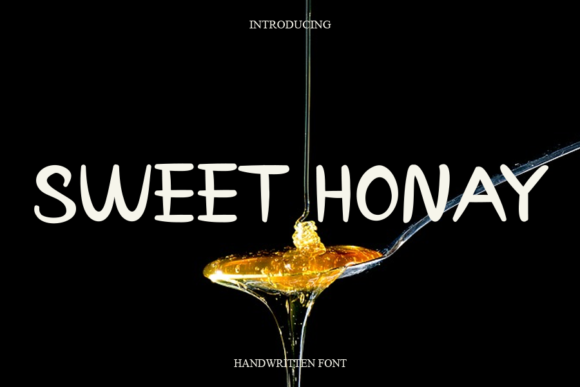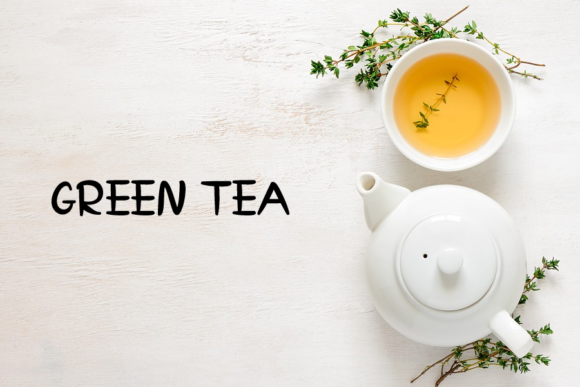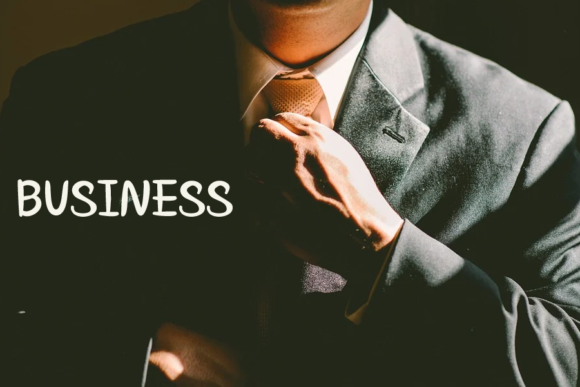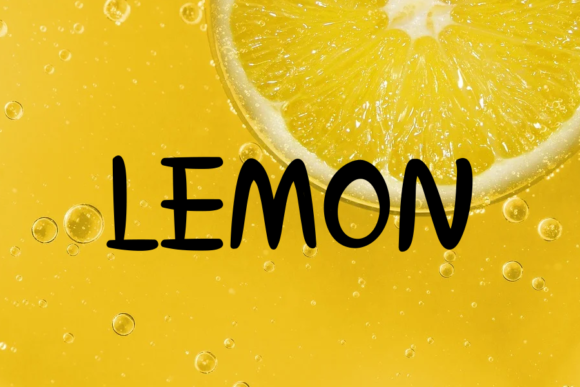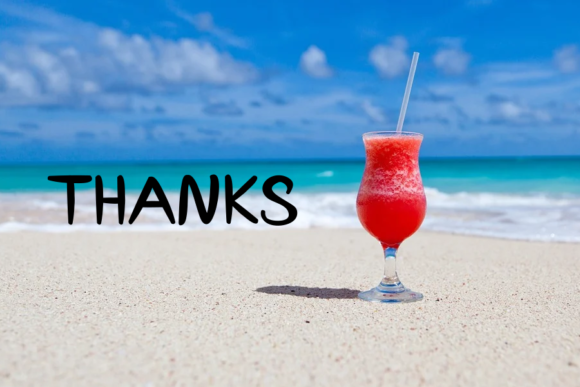
Sweet Honey Font
About Sweet Honey Font
Sweet Honey is a cool, readable and informal handwritten font. Due to its adaptable style, it can be used for various creations. Add it confidently to your projects, and you will love the results.